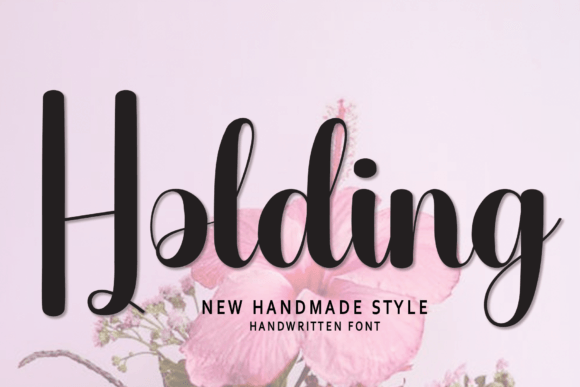
Step into the world of Holding Font, a script masterpiece crafted by Roronoa Zoro.S.P.D, where elegance and creativity intertwine. This enchanting typeface is not just a font; it's an experience that will transform your designs into captivating journeys.
With its bold and confident strokes, Holding Font exudes a timeless charm that speaks to the heart. Its carefully crafted characters dance across the page, evoking a symphony of emotions and stories. Whether you're a seasoned designer or just starting your creative journey, Holding Font will be your steadfast companion, guiding you towards design excellence.
Unleash your imagination and explore the limitless possibilities that Holding Font presents. Its versatility knows no bounds, making it the perfect choice for an array of projects. From T-shirt designs that speak volumes to social media posts that captivate audiences, Holding Font will elevate your creations to new heights.
Picture this: a T-shirt adorned with Holding Font's captivating characters, becoming a walking billboard of style and individuality. Your designs will be the talk of the town, turning heads and sparking conversations wherever you go. With Holding Font, you're not just selling products; you're creating experiences that resonate with your customers.
And it doesn't stop there. Holding Font graces wedding invitations with an air of sophistication, transforming them into cherished keepsakes. Its presence on social media posts amplifies your brand's voice, making it impossible to ignore. From product packaging that exudes quality to labels that demand attention, Holding Font is the ultimate design chameleon, adapting seamlessly to any project you throw its way.
So, embrace Holding Font and unlock the door to a world of design magic. Let your creativity flourish and watch as your projects take on a life of their own. Holding Font is more than just a font; it's a gateway to a world where design dreams come true.